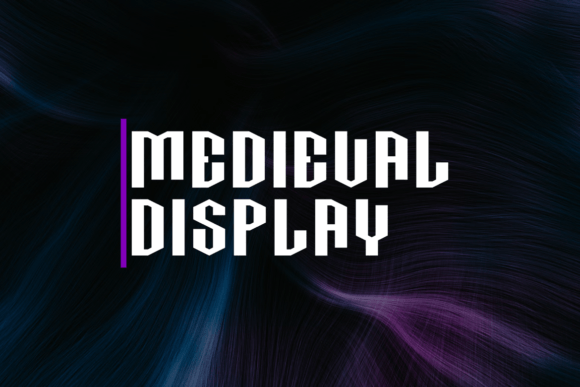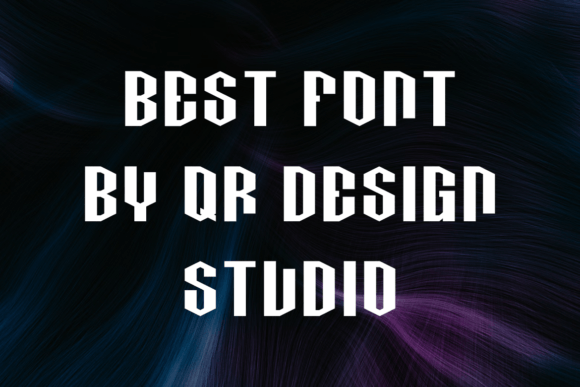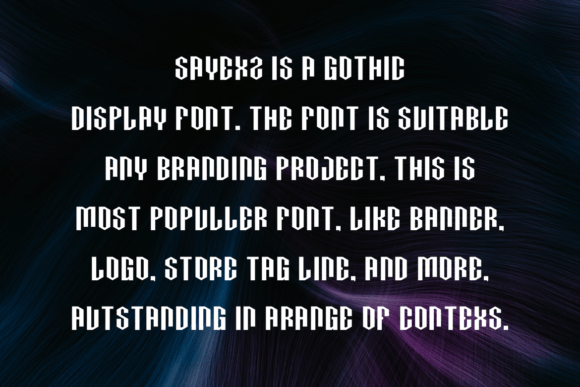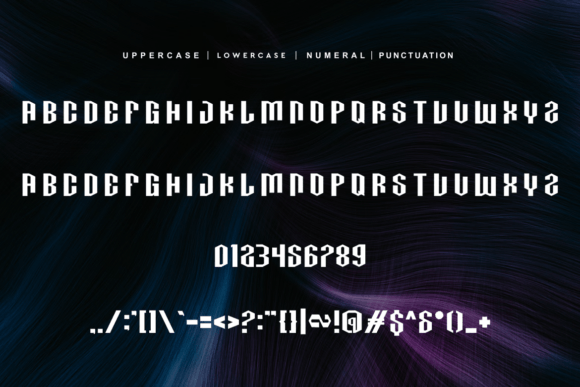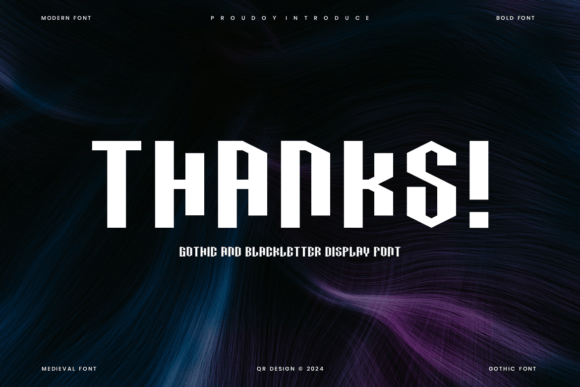
Introduction to Sayexz Font
As a designer, have you ever been in the middle of a creative project, struggling to find the perfect font to bring your vision to life? You browse through countless design resources, but none seem to capture the essence of your idea. This is where Sayexz Font comes in – a bold and authentic display font that’s sure to elevate your design game.
With its high-quality design and transparent background, Sayexz Font is the perfect addition to any branding project. Whether you’re working on a logo, a sports-themed design, or anything in between, this font is sure to make a statement. And the best part? Sayexz Font is available for free download, making it an invaluable resource for designers of all levels.
In this article, we’ll delve into the world of Sayexz Font, exploring its unique features and benefits. We’ll show you why this font is a must-have in your design arsenal and how you can use it to take your creative projects to the next level.
Key Features of Sayexz Font
- Unique font style with a transparent background, perfect for use in graphic design, digital art, and web design.
- Can be easily combined with other design elements to create visually appealing and unique compositions.
Honest Review: Sayexz Font
Here’s what I like about the Sayexz Font:
- The Sayexz Font has a transparent background, making it easy to customize and use in various design applications.
- It’s incredibly versatile, suitable for a wide range of creative projects, from logos to infographics.
- The font library is relatively small, so you might find yourself limited in terms of customization options.
- The Sayexz Font doesn’t come with a comprehensive user manual, which can make it challenging to use for beginners.
Tips for Getting the Most Out of Sayexz Font
Experiment with different font sizes, colors, and combinations to create unique and eye-catching designs. Use Sayexz Font in conjunction with other design elements, such as images and graphics, to add depth and visual interest to your creative project.
Sayexz Font is suitable for a variety of creative projects, including graphic design, branding, and digital art. You can use it to create logos, business cards, brochures, and other marketing materials with a professional and modern look.